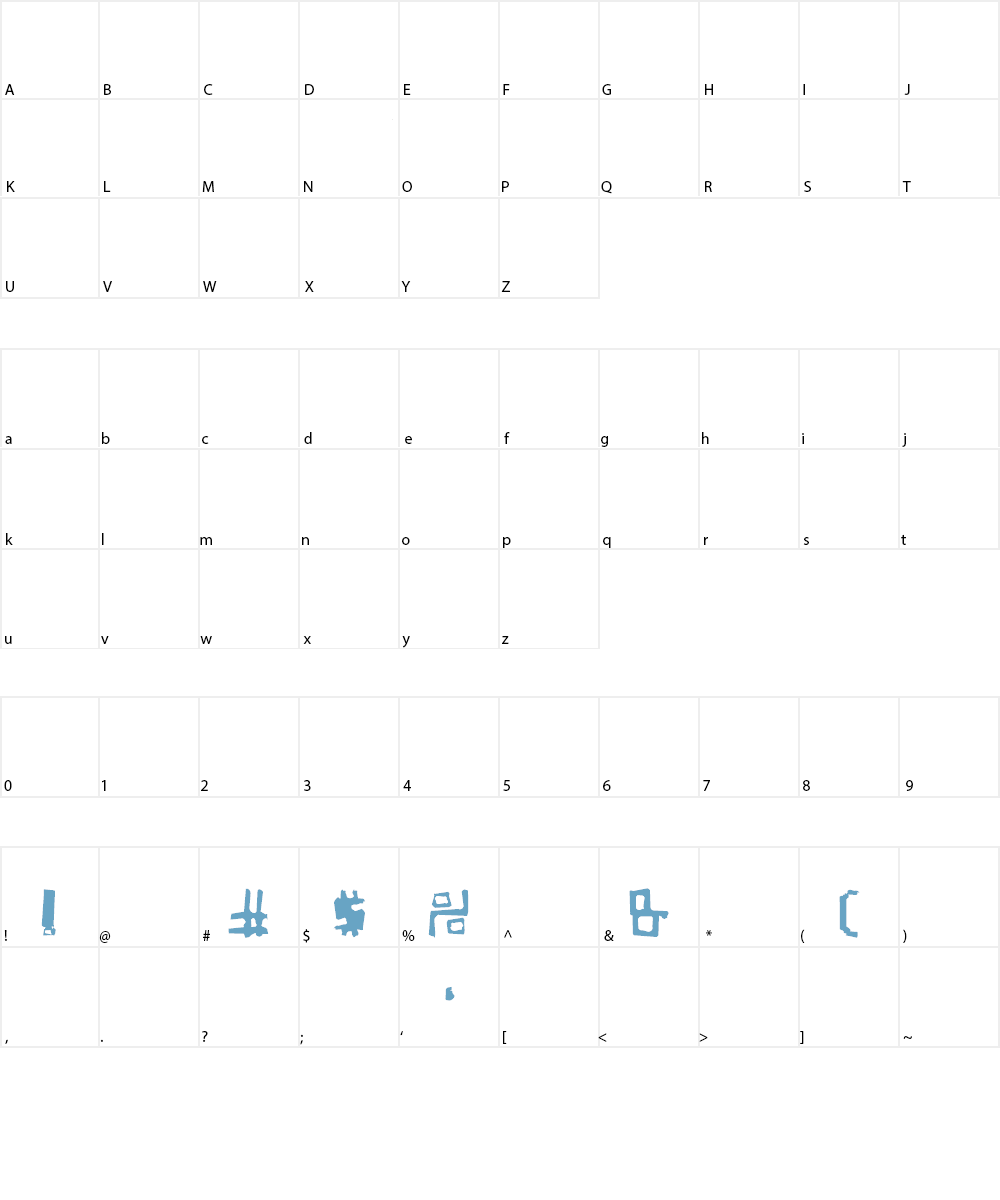
Orthotopes is reminiscent of that ever-familiar 70's style sci-fi font whose name I cannot recall and probably doesn't look a thing like this anyway. ^_^;;;